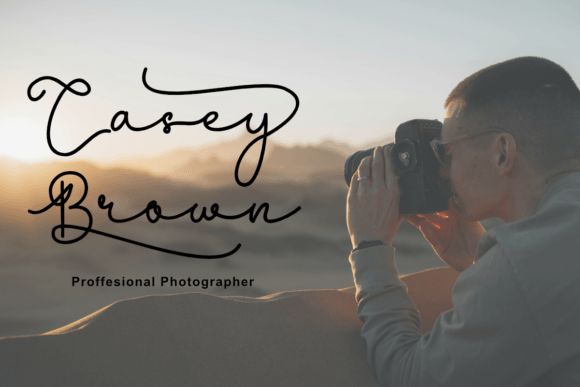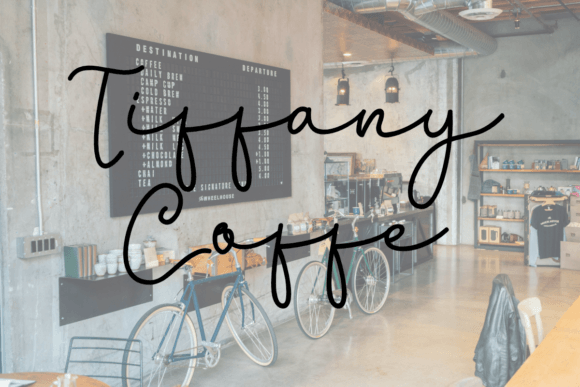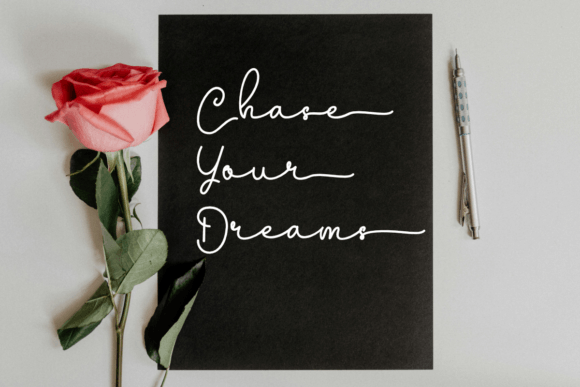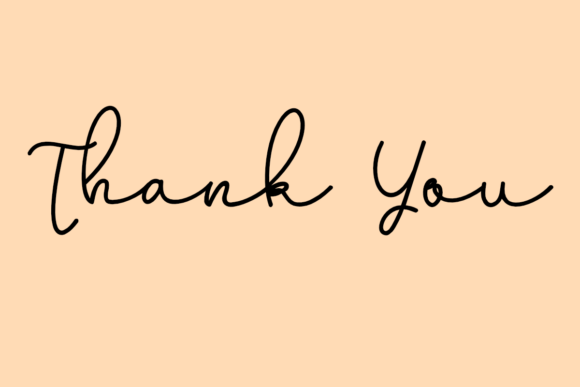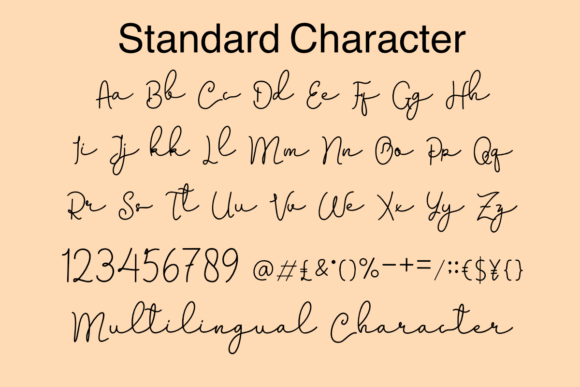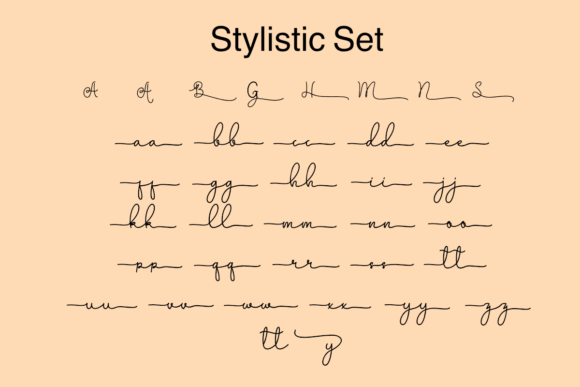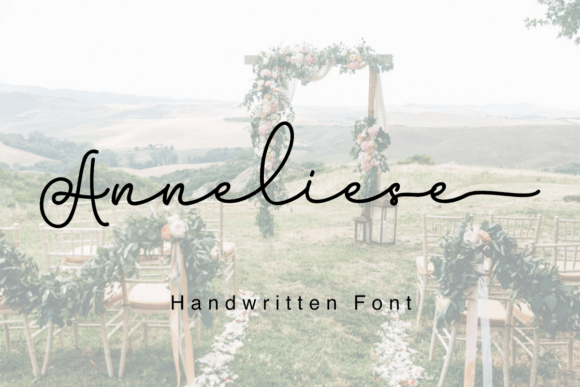
Discover the Elegance of Anneliese Font: Elevate Your Designs with a Personal Touch
In the world of typography, few fonts manage to capture the essence of elegance and charm as effortlessly as Anneliese. This beautiful handwritten font is a gem for designers and crafters looking to add a delicate and refined touch to their projects. With its smooth, flowing strokes and perfectly balanced weight, Anneliese is the ideal choice for anyone aiming to create designs that are not only visually appealing but also uniquely memorable.
The Characteristics of Anneliese Font
Anneliese is distinguished by its handwritten style, which brings a sense of warmth and personality to any design. Its smooth, flowing strokes are meticulously crafted to provide a fluid and natural look, making it perfect for projects that require a touch of elegance and sophistication. The balanced weight of the font ensures that it remains clear and readable, even at smaller sizes, making it versatile for a wide range of applications.
Ideal Uses for Anneliese Font
Given its elegant and refined characteristics, Anneliese is particularly well-suited for projects that call for a personal and sophisticated touch. Some of the ideal uses for Anneliese include:
- Wedding Invitations: The delicate and charming nature of Anneliese makes it a perfect fit for wedding invitations, adding a romantic and personal touch to your wedding stationery.
- Branding: For businesses looking to establish a brand identity that is elegant yet approachable, Anneliese can be a great choice, especially for logos, packaging, and marketing materials.
- Stationery: Whether you’re designing custom stationery for personal use or as a product to sell, Anneliese can add a level of sophistication and charm that sets your designs apart.
Why Choose Anneliese Font?
There are several reasons why Anneliese stands out as a go-to font for designers and crafters:
- Unique Charm: In a world of digital fonts, Anneliese offers a unique charm that can make your designs feel more personal and less generic.
- Versatility: Its balanced design makes Anneliese versatile for use in a variety of projects, from digital content to print materials.
- Ease of Use: Anneliese is easy to read and works well in both large and small sizes, making it convenient for a wide range of applications.
- Timeless Appeal: Unlike trend-specific fonts, Anneliese has a timeless quality that ensures your designs won’t look dated anytime soon.
Tips for Using Anneliese Font Effectively
To make the most of Anneliese, consider the following tips:
- Pair with Complementary Fonts: For maximum impact, pair Anneliese with fonts that complement its elegant style. Serif fonts or simple sans-serifs can create a beautiful contrast.
- Adjust Line Spacing: To maintain readability and aesthetics, adjust the line spacing according to your project’s requirements.
- Experiment with Colors: While Anneliese looks stunning in classic black and white, don’t be afraid to experiment with colors that match your brand or design theme.
Anneliese font is a beautiful addition to any designer’s toolkit, offering a unique blend of elegance, charm, and simplicity. Whether you’re working on wedding invitations, branding projects, or stationery, Anneliese can help you create designs that are not only visually stunning but also deeply personal. Its smooth strokes, balanced weight, and timeless appeal make it a versatile choice for a wide range of projects. By incorporating Anneliese into your design repertoire, you’re sure to elevate your work and make it truly memorable.